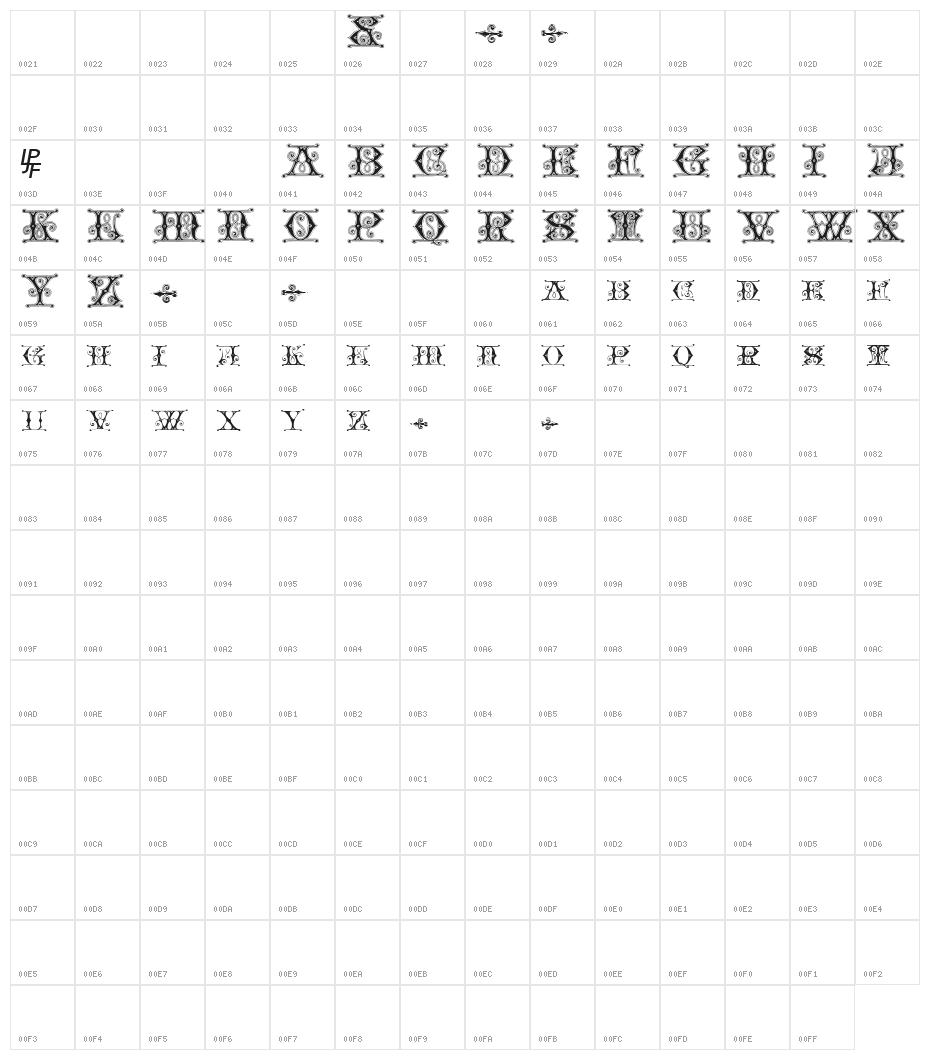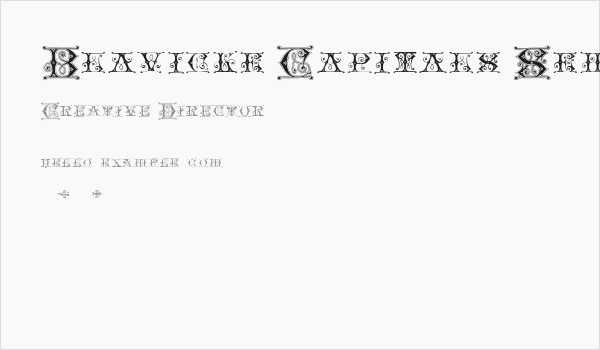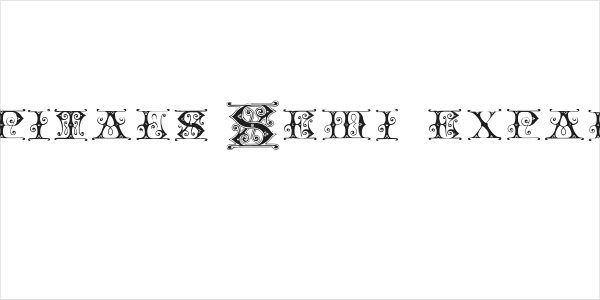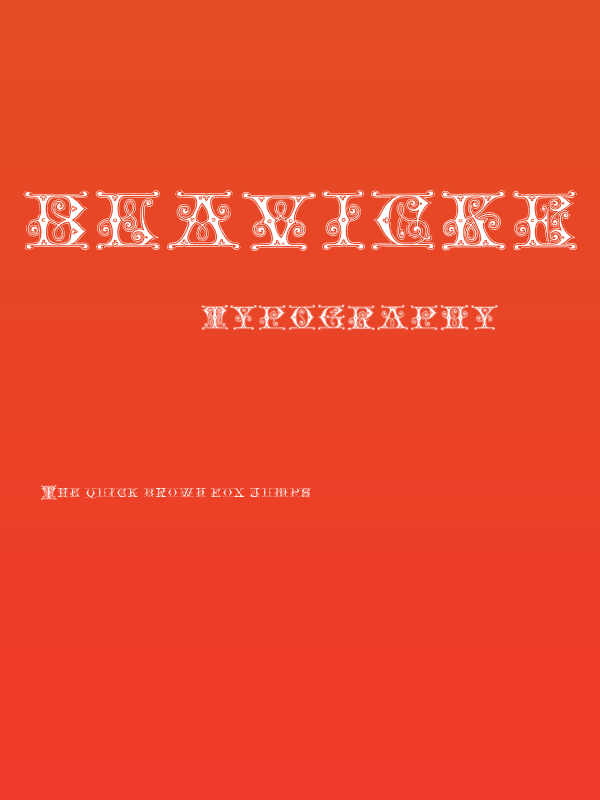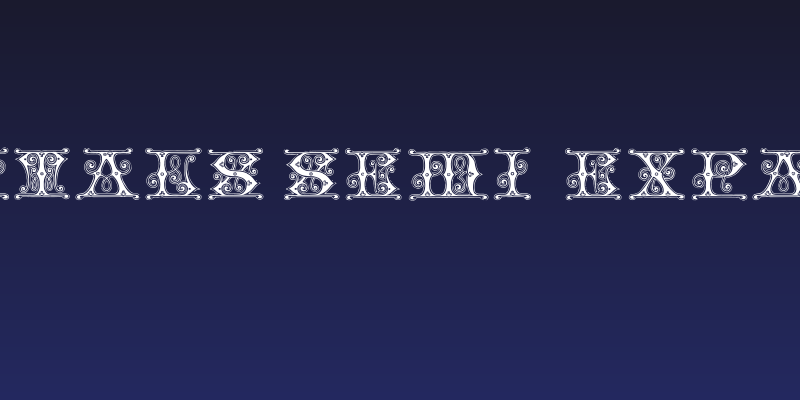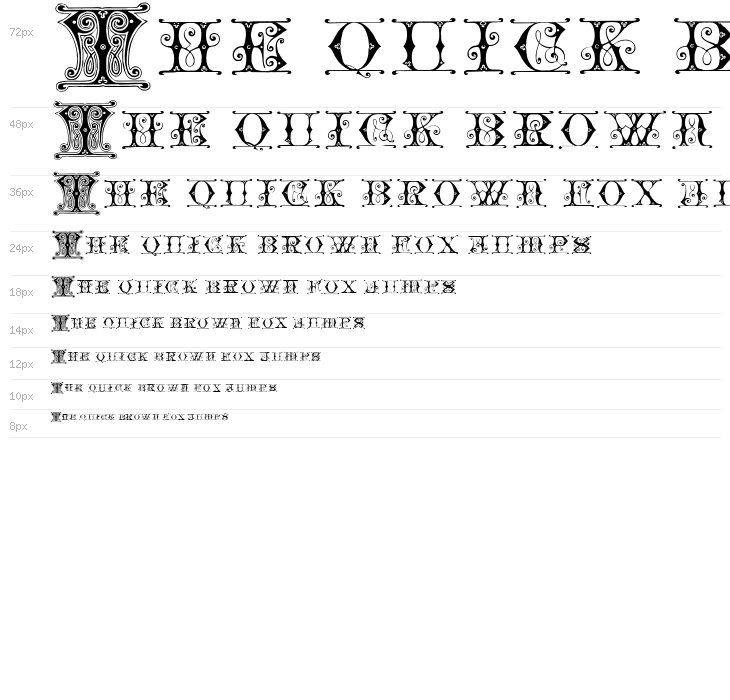
Blavicke Capitals Semi-expanded Regular Font
Blavicke Capitals Semi-expanded Regular Description
This font features an intricate and decorative design, characterized by elaborate swirls and flourishes within each letterform. The uppercase letters are adorned with ornate details that give them a regal and vintage appearance. The semi-expanded width allows for a slightly wider stance, enhancing the decorative elements without compromising readability. The font exudes a sense of elegance and sophistication, making it suitable for projects that require a touch of classical beauty. Its unique style is reminiscent of historical typefaces, yet it maintains a modern flair through its clean execution and balanced proportions.
| Proposed Projects | Ideal for wedding invitations, luxury branding, vintage-themed posters, and decorative headlines. |